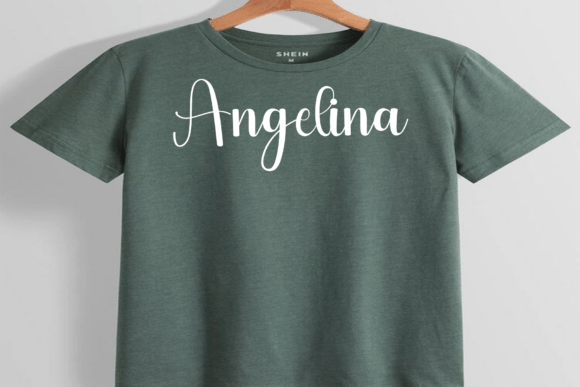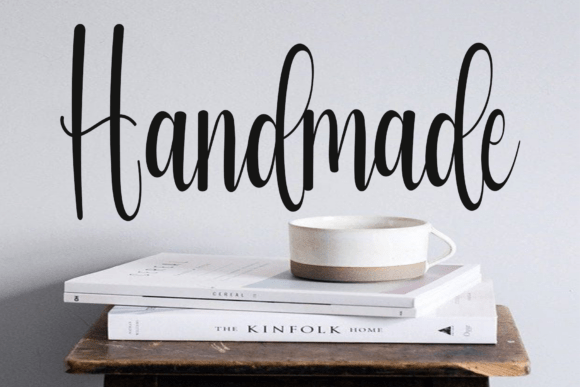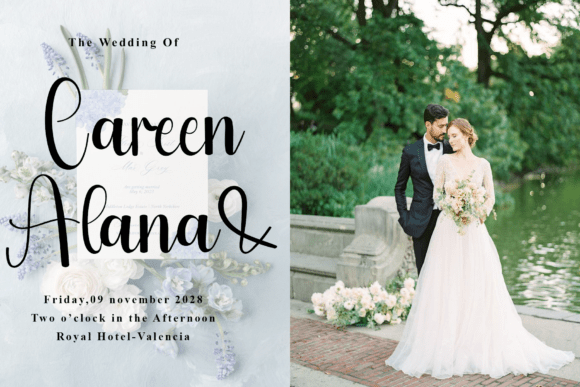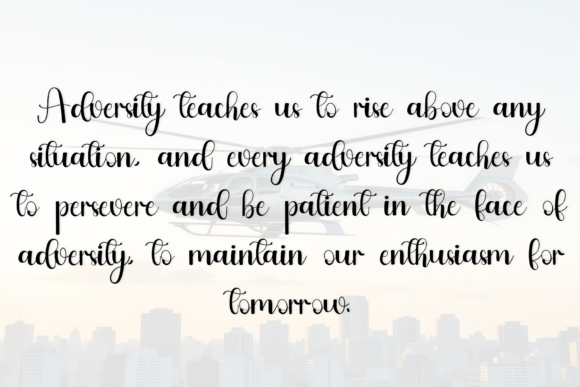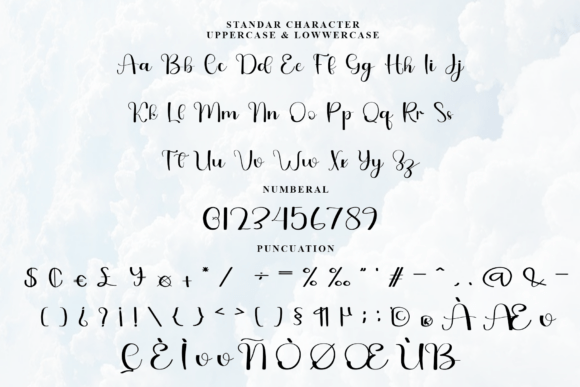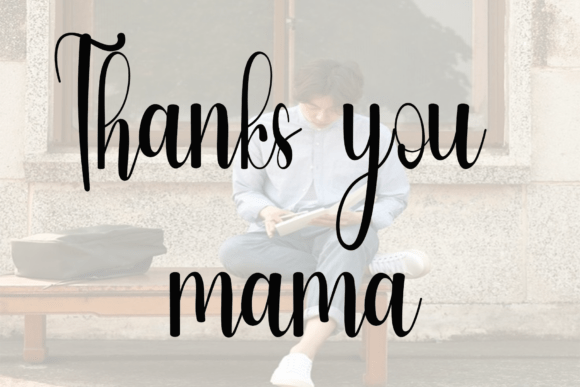
Introducing Helicopter Font: Elevate Your Design with Elegance and Sophistication
In the world of typography, a well-crafted font can make all the difference in elevating your design from ordinary to extraordinary. If you’re a designer, craftsperson, or simply someone who appreciates the art of beautiful writing, you’re in luck. Helicopter Font is a stunning, modern handwritten script font that embodies the perfect blend of elegance, sophistication, and luxury. In this article, we’ll delve into the features, benefits, and uses of Helicopter Font, and explore how it can transform your design projects.
The Beauty of Helicopter Font
Helicopter Font is a beautifully flowing and elegant modern handwritten script font that boasts smooth, generous curves and graceful, elongated strokes. Its signature look is reminiscent of high-end luxury brands, making it an ideal choice for designers and crafters who want to add a touch of sophistication to their work. Whether you’re creating personal branding materials, photography watermarks, luxury wedding stationery, or editorial designs, Helicopter Font is the perfect typeface to give your project a sweeping, authentic, and naturally luxurious touch.
Key Features of Helicopter Font
- Smooth and generous curves: Helicopter Font features flowing curves that give it a soft, elegant appearance.
- Graceful, elongated strokes: The font’s elongated strokes add a touch of sophistication and luxury to your designs.
- Professional and unique typeface: Helicopter Font is a one-of-a-kind typeface that’s perfect for designers and crafters who want to stand out from the crowd.
- Perfect for personal branding: Use Helicopter Font to create stunning personal branding materials, such as logos, business cards, and letterheads.
- Ideal for luxury wedding stationery: Add a touch of elegance and sophistication to your wedding stationery with Helicopter Font.
Uses of Helicopter Font
Helicopter Font is a versatile typeface that can be used in a variety of design projects, including:
- Personal branding: Use Helicopter Font to create a consistent and sophisticated visual identity for your personal brand.
- Photography watermarks: Add a touch of elegance to your photography watermarks with Helicopter Font.
- Luxury wedding stationery: Create stunning wedding stationery, including invitations, save-the-dates, and thank-you cards, with Helicopter Font.
- Editorial design: Use Helicopter Font to add a touch of sophistication to your editorial designs, such as magazines, newspapers, and blogs.
- Crafting and DIY projects: Helicopter Font is perfect for crafters who want to add a touch of elegance to their DIY projects, such as handmade cards, gift tags, and scrapbooking.
Why Choose Helicopter Font?
With so many fonts available, why choose Helicopter Font? Here are just a few reasons why Helicopter Font stands out from the crowd:
- Unique and exclusive: Helicopter Font is a one-of-a-kind typeface that’s sure to make your designs stand out.
- Elegant and sophisticated: Helicopter Font exudes elegance and sophistication, making it perfect for high-end designs.
- Versatile: Helicopter Font can be used in a variety of design projects, from personal branding to editorial design.
- Easy to read: Despite its elegant appearance, Helicopter Font is easy to read, making it perfect for body text and headlines.
In conclusion, Helicopter Font is a stunning modern handwritten script font that’s perfect for designers and crafters who want to add a touch of elegance and sophistication to their work. With its smooth curves, elongated strokes, and unique typeface, Helicopter Font is sure to elevate your designs to the next level. Whether you’re creating personal branding materials, luxury wedding stationery, or editorial designs, Helicopter Font is the perfect choice. So why wait? Try Helicopter Font today and experience the power of beautiful typography.